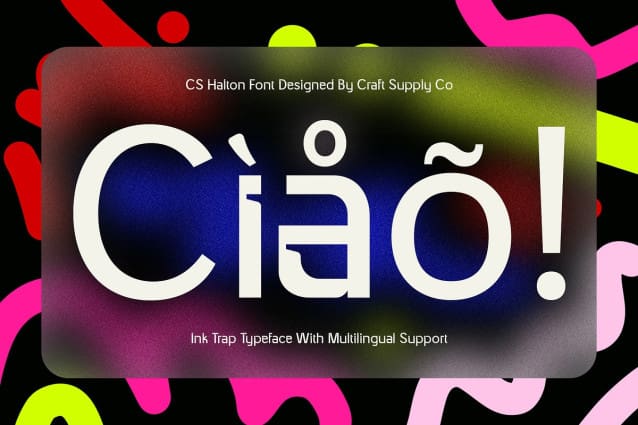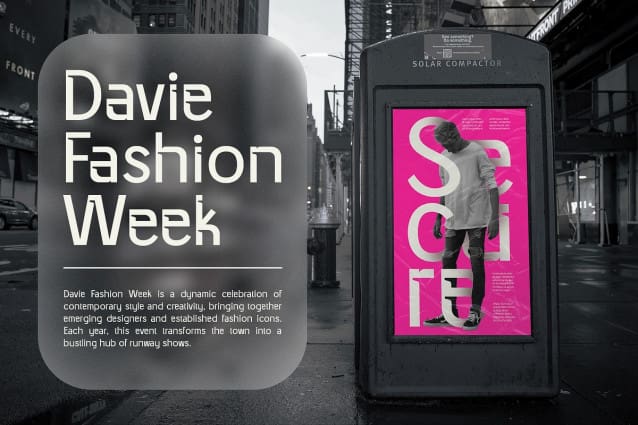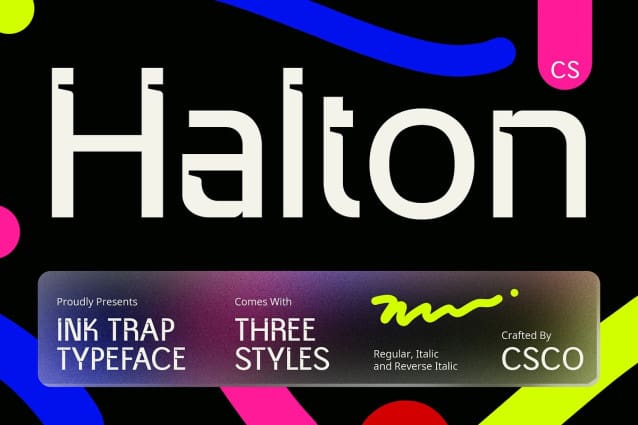
CS Halton Font
CS Halton Font, a modern sans serif font that incorporates ink trap techniques with clean geometric forms, offering a unique and highly functional design. Ink traps are a clever design feature that enhances readability, especially at smaller sizes, by preventing ink from filling in sharp corners. This innovation makes CS Halton an excellent choice for both digital and print projects where clarity is paramount.
Geometric Shapes for a Clean, Modern Aesthetic CS Halton’s geometric shapes contribute to a sleek, contemporary aesthetic that feels both minimalistic and professional. Its clean lines and balanced proportions make it a versatile font suitable for a wide range of design applications. Whether you’re working on branding, advertising, or user interface design, CS Halton provides the modern, polished look that your project needs.
Ideal for a Variety of Applications From logos and product packaging to web and mobile interfaces, CS Halton shines in settings where readability and style must coexist. Its ink trap features ensure excellent clarity even in small text, while its geometric structure adds a modern, stylish appeal. This balance of functionality and aesthetics makes CS Halton an ideal solution for designs that require both precision and visual impact.